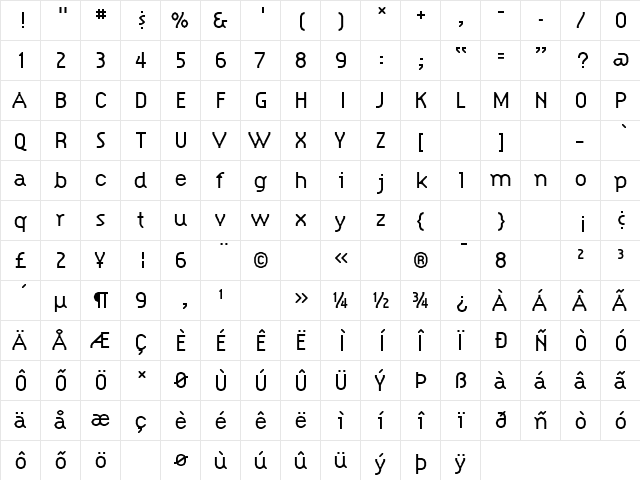
Citizen-Light Light
Design Context for Citizen-Light Typeface
Citizen-Light takes a measured approach to typography — its balanced proportions and neutral character make it a reliable workhorse for both digital and print work. Its slender proportions lend an understated elegance to any composition.
Pro Tip: Use Citizen-Light in both headline and body roles to test its range before committing to a single application.